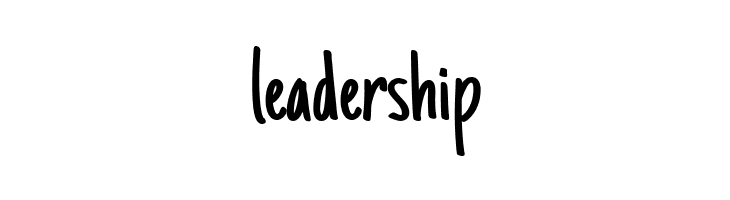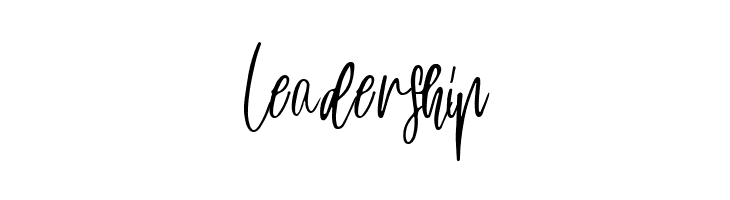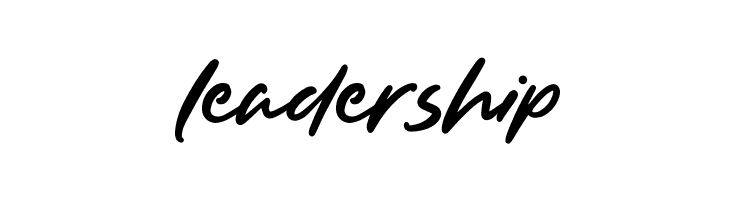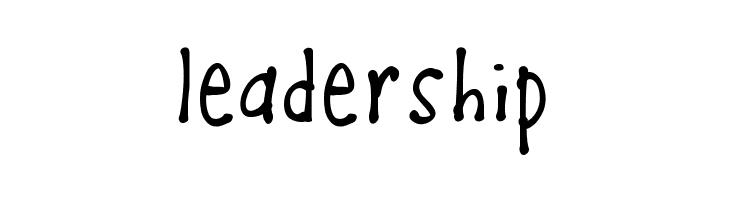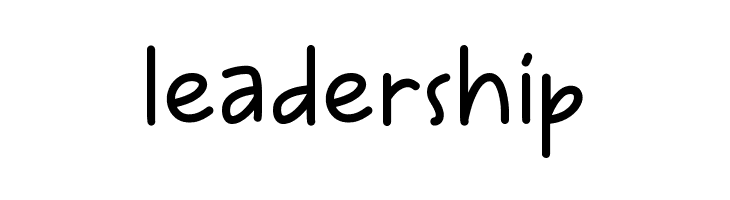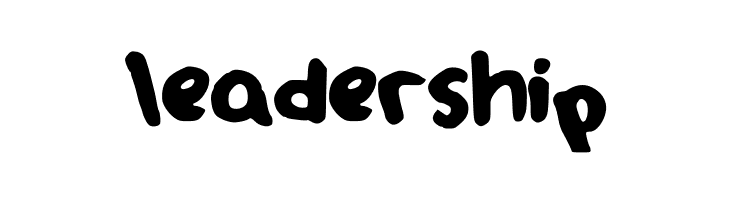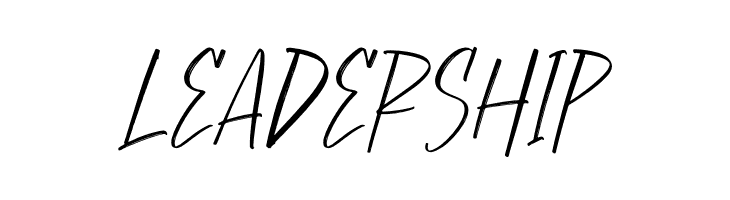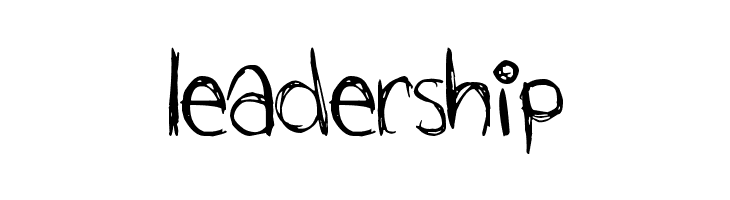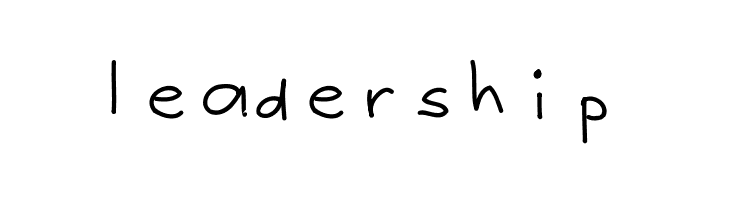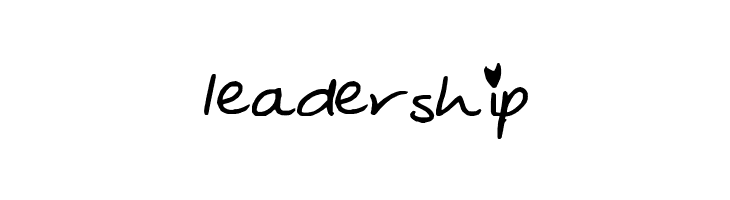
A bold, flowing script font with a playful, handwritten style.
A tall, slender handwritten font with dynamic, flowing strokes.
A playful, handwritten font with tall, narrow characters and a lively, informal style.
A playful, handwritten-style font with a whimsical and casual appearance.
Elegant and artistic script font.
Tall, playful handwritten script with loose, flowing lines.
A fluid and elegant script font with a handwritten feel.
A sophisticated and fluid script font with a handwritten appearance.
A flowing, cursive font with elegant loops and a handwritten appearance.
Casual handwritten script with energetic, connected strokes.
Playful handwritten font with tall, narrow characters.
A playful and casual handwritten font with dynamic strokes and a lively style.
A playful, rounded font with a hand-drawn feel, perfect for casual designs.
A playful, hand-drawn font with a whimsical and informal style.
A playful, handwritten font with smooth, fluid strokes and a casual appearance.
A playful, casual handwritten font with smooth curves and a personal touch.
A playful handwritten font with smooth curves and a casual style.
A playful, handwritten font with dynamic and irregular strokes.
A playful, casual handwritten font with a whimsical and informal style.
A playful, handwritten font with a casual and friendly appearance.
A dynamic and fluid script font with a cursive, handwritten style.
Elegant, handwritten script with a signature feel.
A fluid, elegant script font with connected strokes and a handwritten feel.